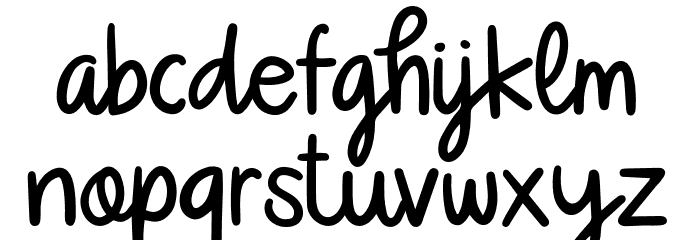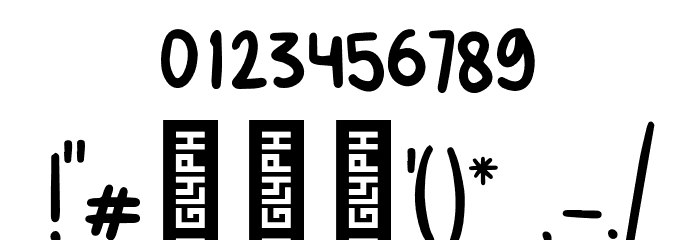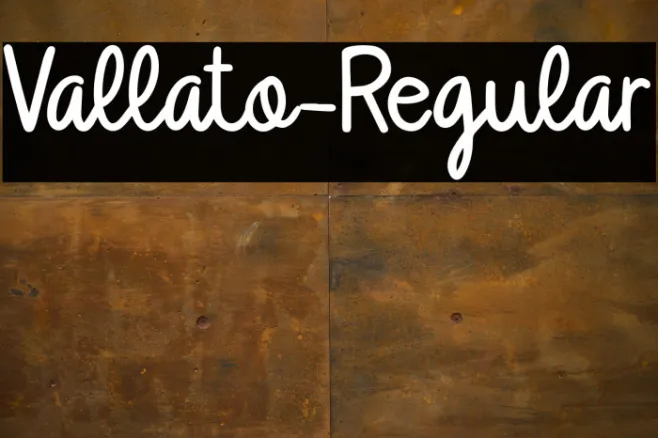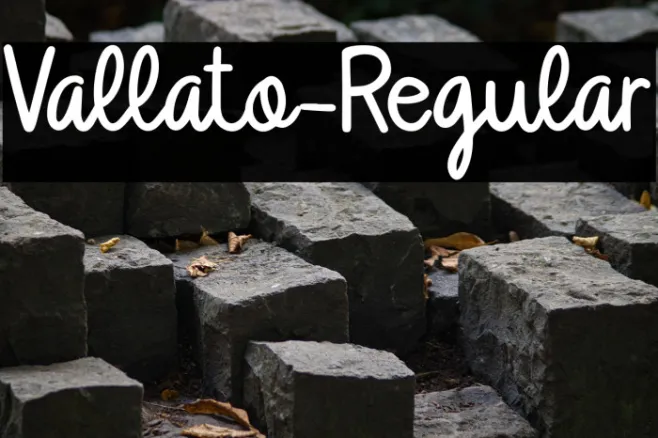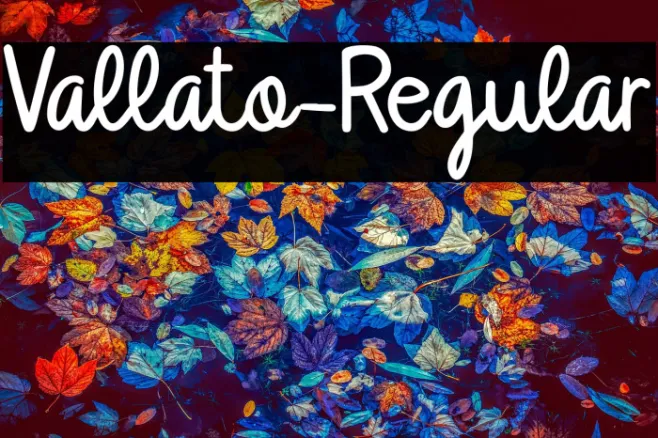
Vallato-Regular Font
This font features a playful and casual handwritten style, characterized by its smooth, rounded edges and consistent stroke width. The letters are slightly elongated, giving them a tall and narrow appearance, which adds to the font's whimsical charm. The uppercase and lowercase letters maintain a cohesive look, with a slight slant that enhances the informal, friendly vibe. The numerals are clear and legible, matching the overall style of the alphabet. Special characters are included, maintaining the same playful aesthetic. This font is versatile, suitable for projects that require a personal touch or a relaxed, approachable feel.
A playful, handwritten font with smooth, rounded edges and a casual style.
- Proposed Projects: Ideal for greeting cards, children's books, casual branding, and social media graphics.
- Category: Handwritten
- Overall Style: Casual
- Use Case: Headlines, Logos, Social media graphics